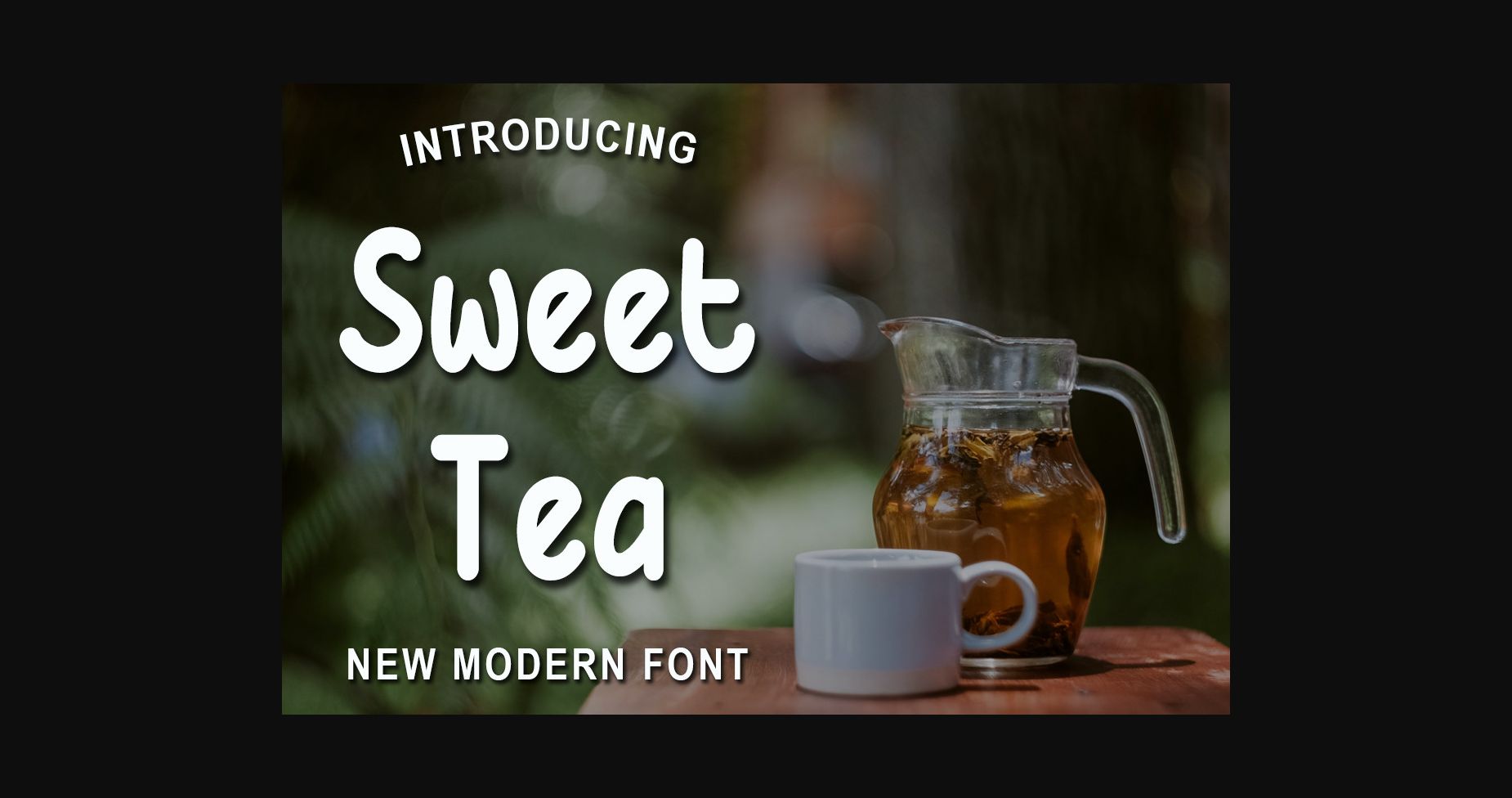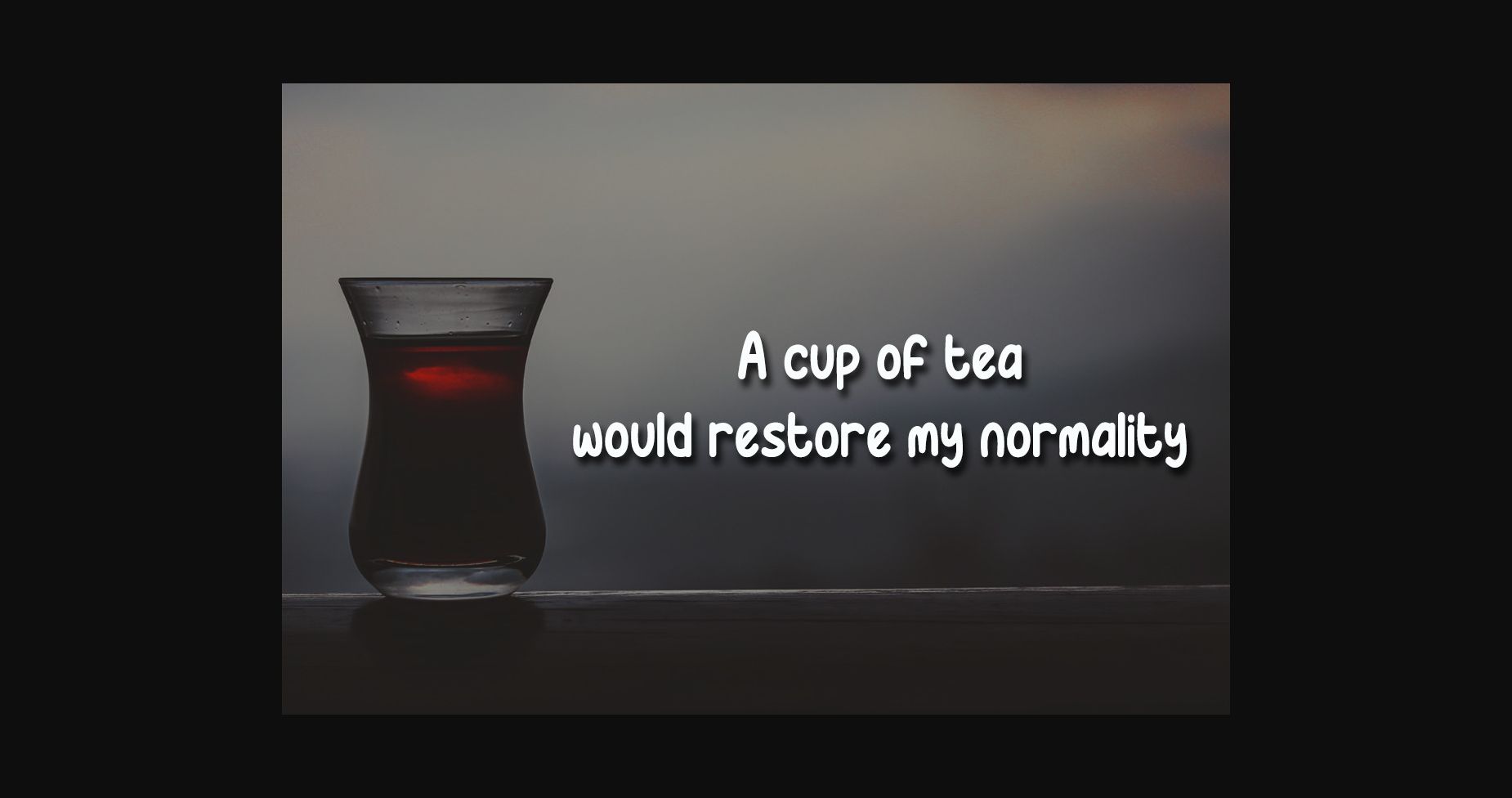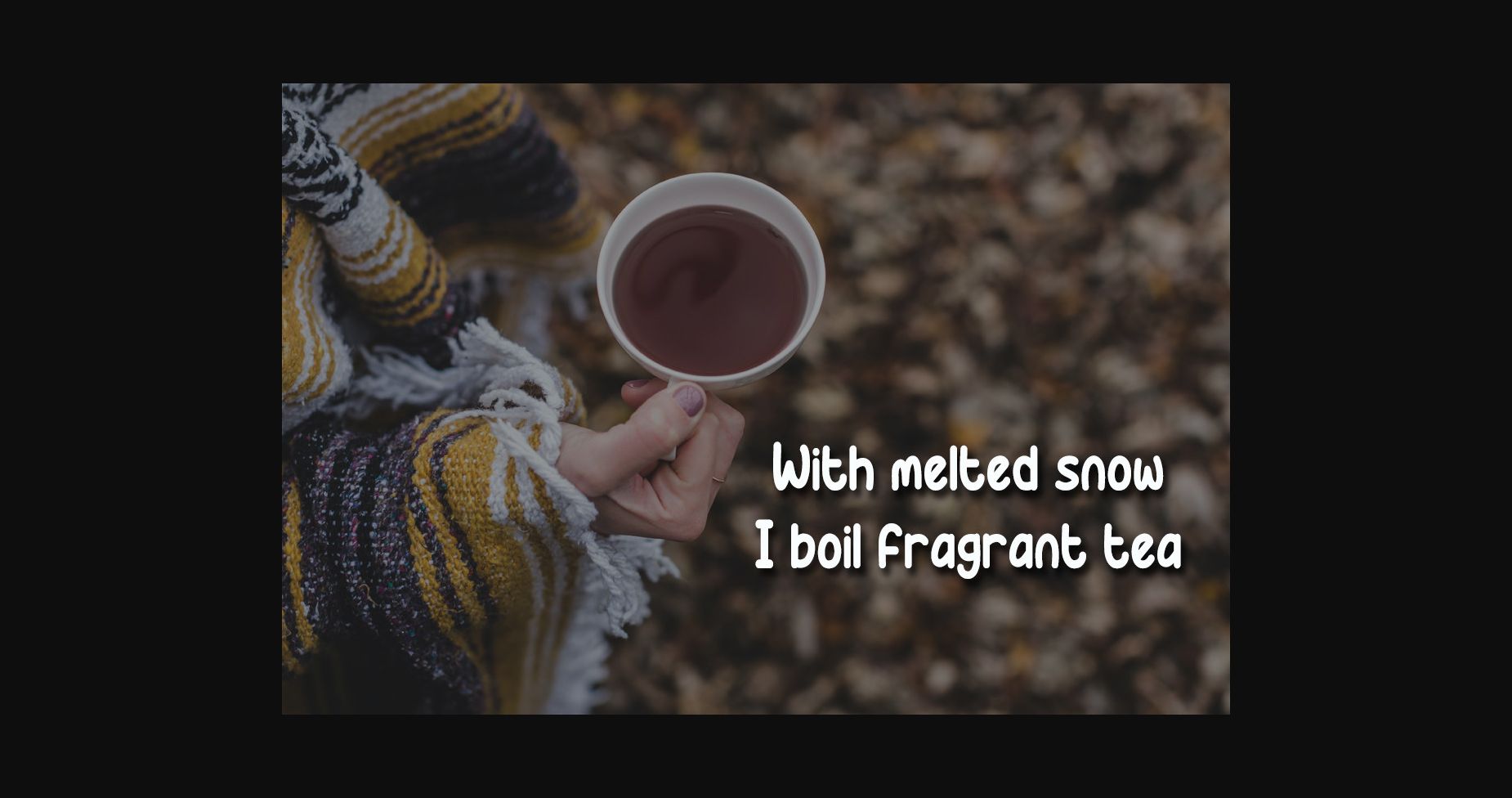
About Sweet Tea Font
Sweet tea is a lovely and charming sans serif font. Its friendly characters give off a pleasant vibe that can elevate the look of any of your beautiful creations! Try it on labels, name tags, book covers, magazines, and more!